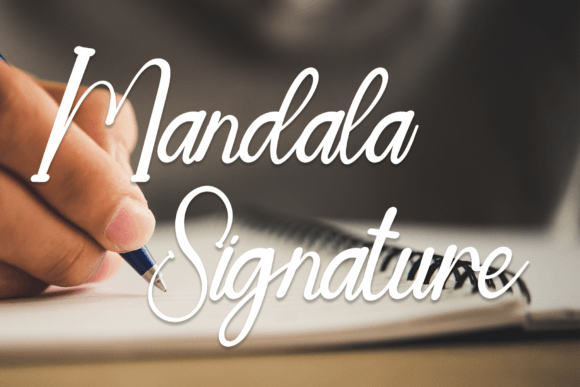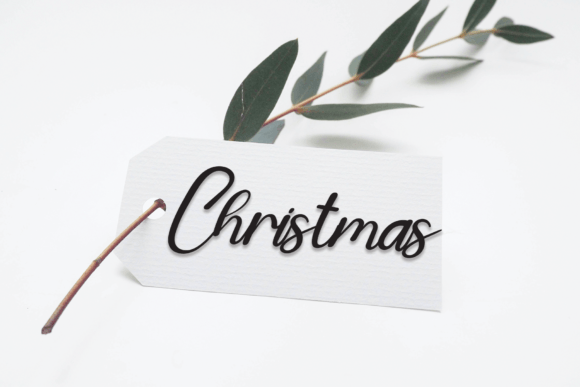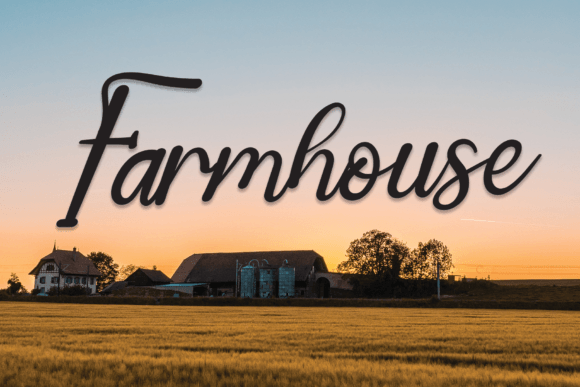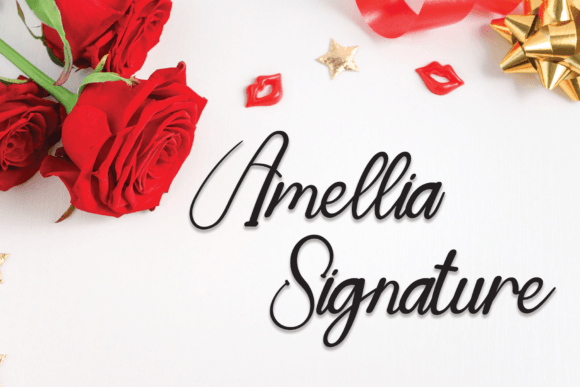
About Mandala Signature Font Download
The Mandala Signature Font Download is a fun and friendly handwritten script designed to add personality, charm, and versatility to creative projects. With its smooth handwritten strokes and approachable design, this typeface works well for invitations, greeting cards, posters, logos, branding, and digital content. Its balance of playfulness and professionalism makes it an essential choice for both hobbyists and professional designers.
A Friendly Handwritten Script with Modern Appeal
Unlike generic typefaces, the Mandala Signature script font blends casual handwritten rhythm with contemporary style. As a result, it feels creative, approachable, and versatile, making it perfect for projects that need to stand out while remaining legible.
Handwritten fonts always make personal stationery feel more meaningful. The Mandala Signature Font is excellent for wedding invitations, thank you cards, birthday messages, and holiday greetings. Moreover, its smooth flow ensures that each design feels heartfelt and polished.
Branding and Logo Design with Mandala Signature Font
Typography defines a brand’s identity, and the Mandala Signature handwritten font is a great choice for boutique logos, product packaging, and promotional materials. In addition, its fun handwritten charm allows businesses to project a friendly yet professional image.
Posters, Titles, and Creative Displays
The Mandala Signature Font Download adapts seamlessly to posters, book covers, banners, and editorial designs. Therefore, it performs well across both large-scale and small-scale projects, maintaining clarity while adding character.
In today’s digital landscape, fonts must be versatile and eye-catching. The Mandala Signature typeface integrates smoothly into Instagram graphics, YouTube banners, Pinterest posts, and blogs. Its approachable handwritten design ensures online content looks polished and inviting.
Why Designers Choose Mandala Signature Typeface
Designers value fonts that balance creativity with usability. While some handwritten styles may lose readability, the Mandala Signature handwritten script keeps its playful personality while staying clear at every size. This makes it a dependable choice for a wide range of creative work.